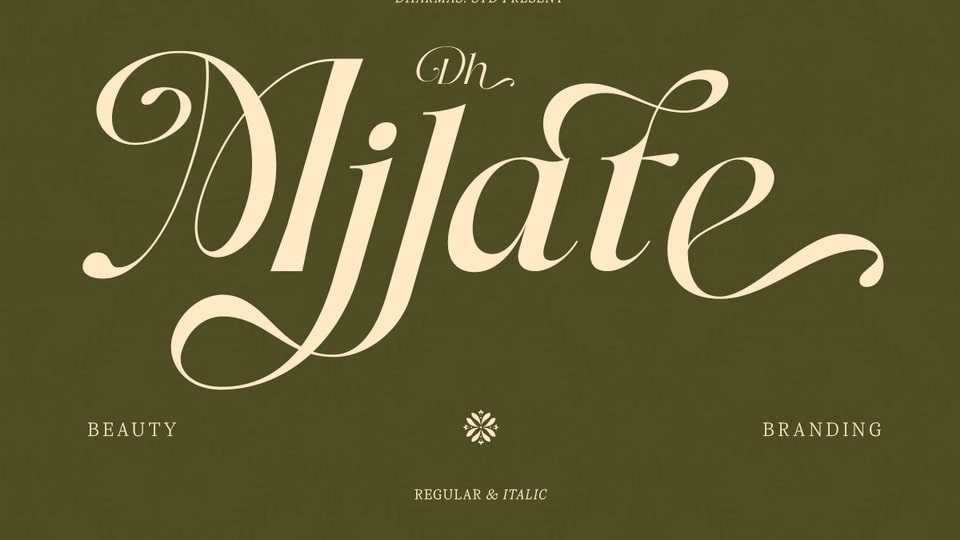
Download Dh Milate font, a beauty-inspired elegant serif typeface crafted with smooth curves, graceful contrast, and a naturally refined aesthetic. Designed for modern branding, cosmetic packaging, editorial layouts.